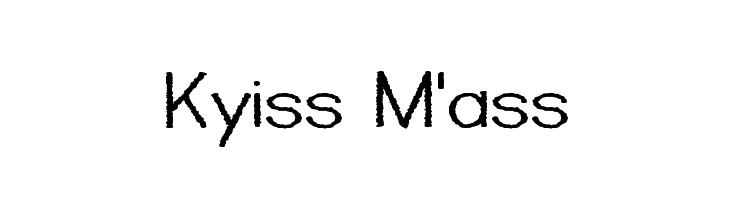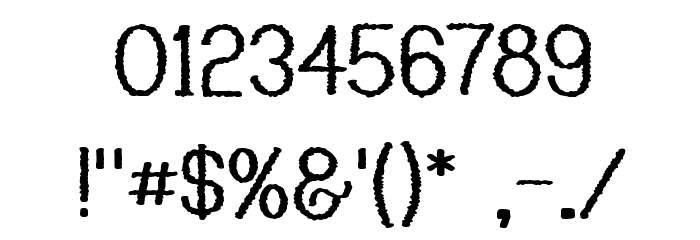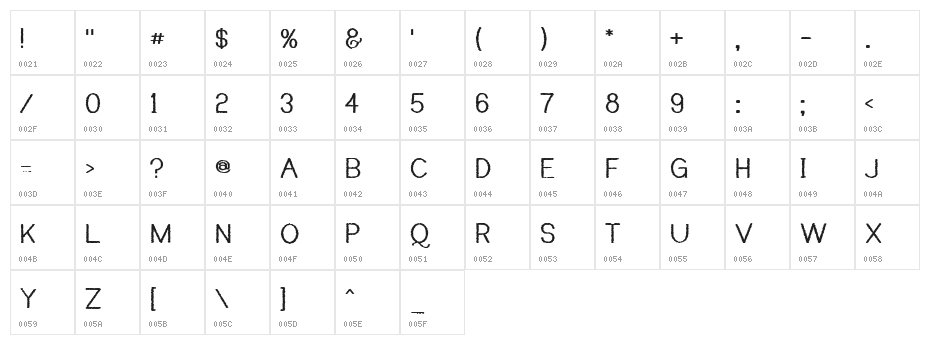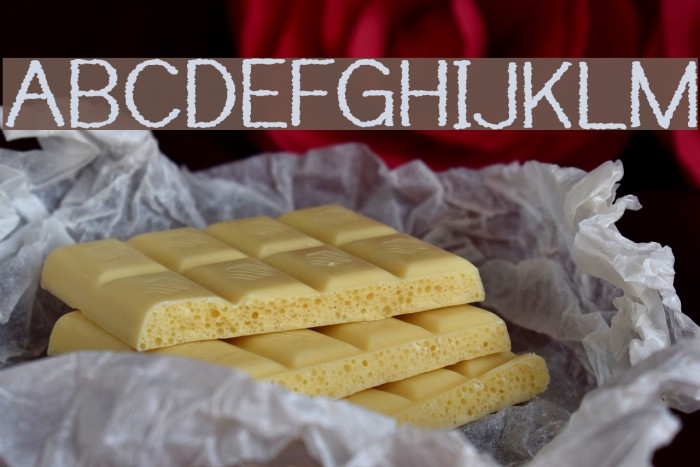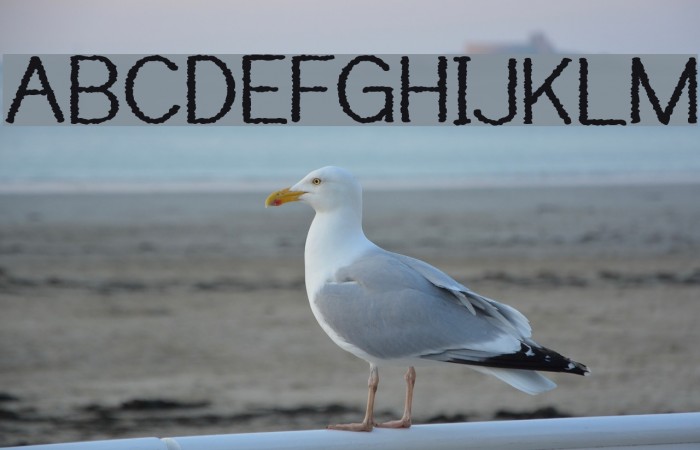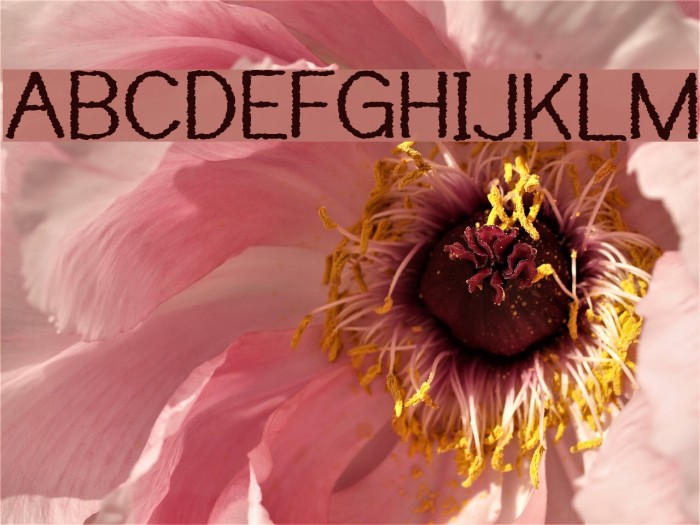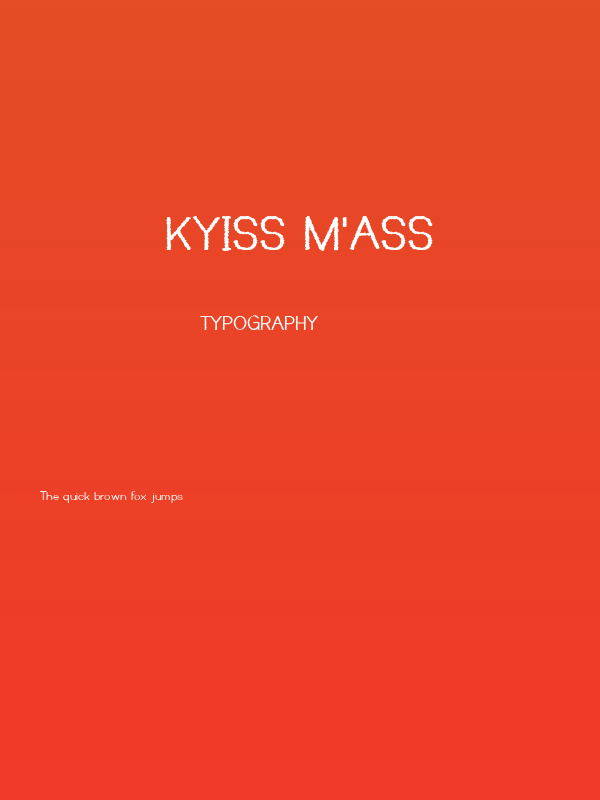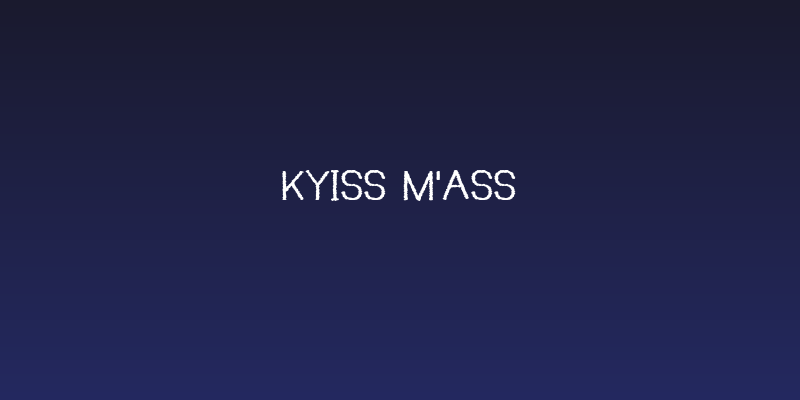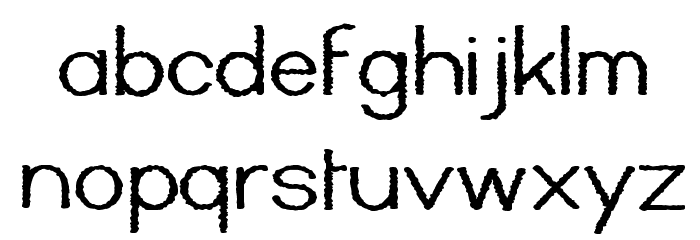
Kyiss M'ass Font
Kyiss M'ass Description
This font features a playful and slightly irregular design, reminiscent of hand-drawn letters. The characters have a unique, textured appearance that gives them a casual and approachable feel. The uppercase and lowercase letters are well-proportioned, with a consistent stroke width that maintains readability. The numbers and special characters follow the same design principles, ensuring a cohesive look across all elements. The font's style is versatile, making it suitable for a variety of creative projects where a personal touch is desired.
| Proposed Projects | Ideal for children's books, greeting cards, casual branding, and creative posters. |